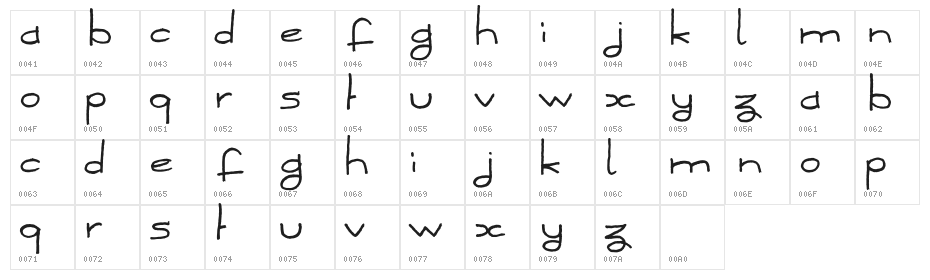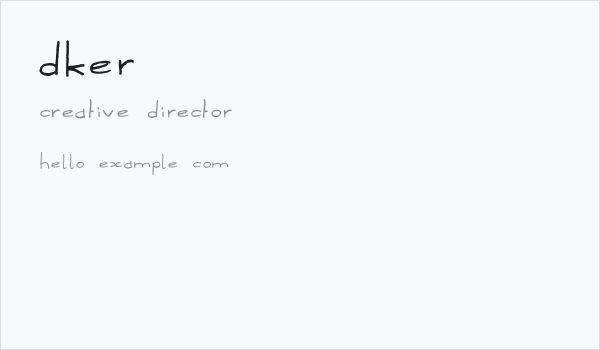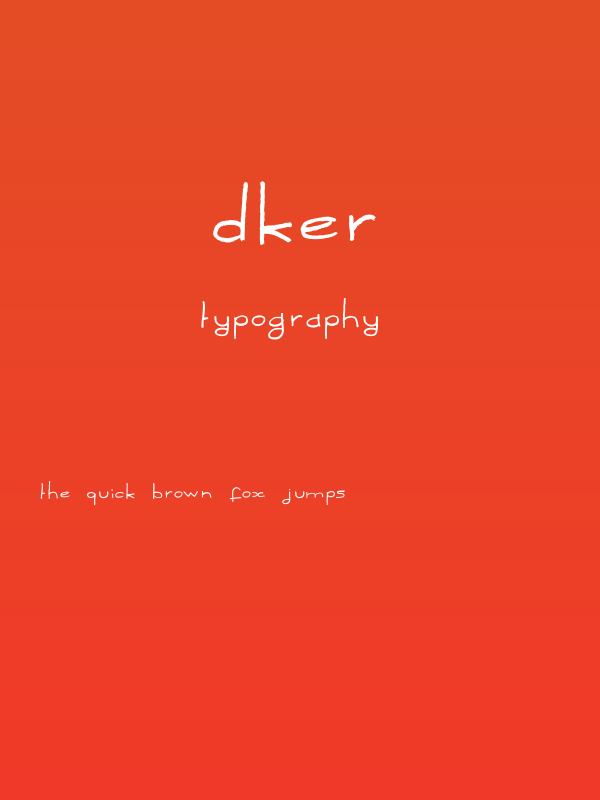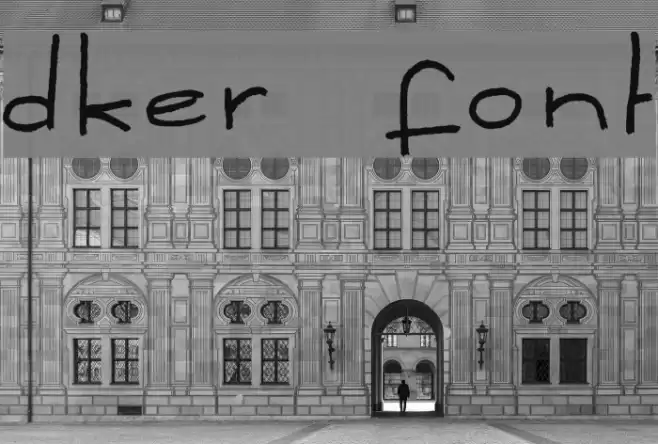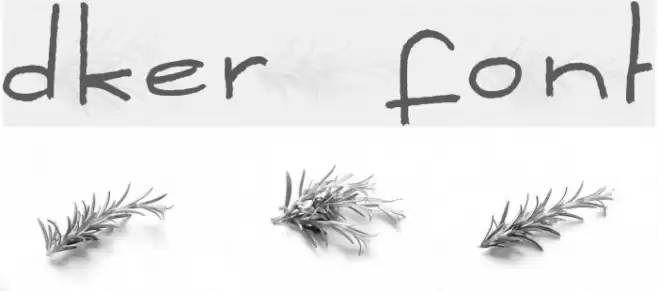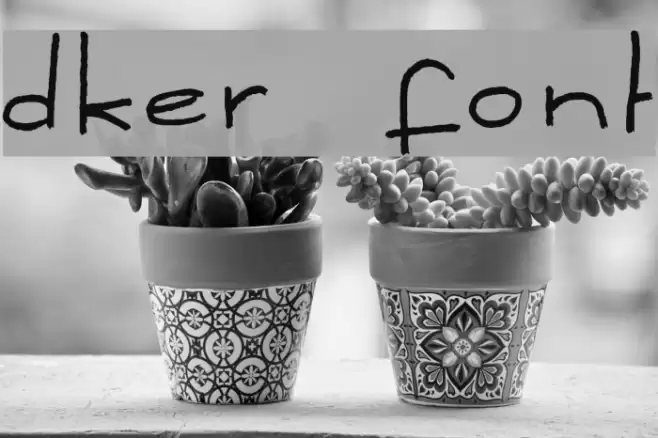
Dker Font
Dker Description
This font features a playful and casual handwritten style, characterized by its uneven strokes and slightly irregular letterforms. The letters have a natural flow, giving them a personal and informal appearance. The strokes are moderately thick, with a consistent weight throughout, which adds to the legibility while maintaining a relaxed feel. The rounded edges and slight slant of the characters contribute to its approachable and friendly demeanor. This font is versatile, suitable for projects that aim to convey warmth and personality, such as personal invitations, greeting cards, or creative branding.
| Overall Style | Casual |
| Use Case | Greeting cards, Invitations, Informal communication |
| Proposed Projects | Ideal for personal invitations, greeting cards, creative branding, and informal communication. |